2026 Best Cute Fonts Collections for a Cute and Attractive Design
In the world of graphic design, cute fonts are a favorite choice for creating sweet, cheerful, and eye-catching visuals. This type of font is synonymous with playfulness, friendliness, and warmth, making it perfect for various design needs, from social media content and children’s product branding to packaging, posters, and creative invitations.
This article will discuss recommendations for the best cute fonts that are not only visually adorable but also functional and easy to combine with various design concepts. Here are some font choices to inspire you.
Bluefin Hake
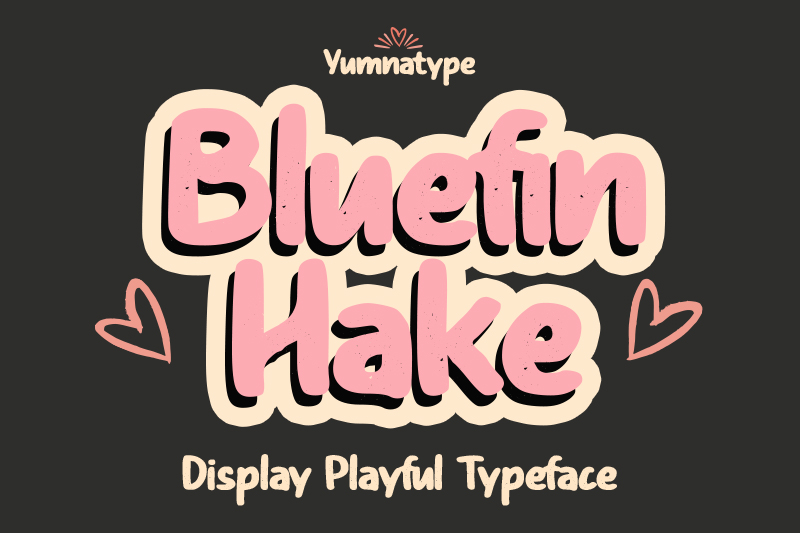
Bluefin Hake is one of cute fonts with a bold look and expressive grunge feel. Despite its strong, bold character, this font still conveys a soft and friendly feel. It’s perfect for children’s-themed designs, fun illustrations, and educational content that seeks to be engaging and different. Its anti-mainstream character makes Bluefin Hake appealing to audiences who appreciate unique visual styles.
Cute Oneself
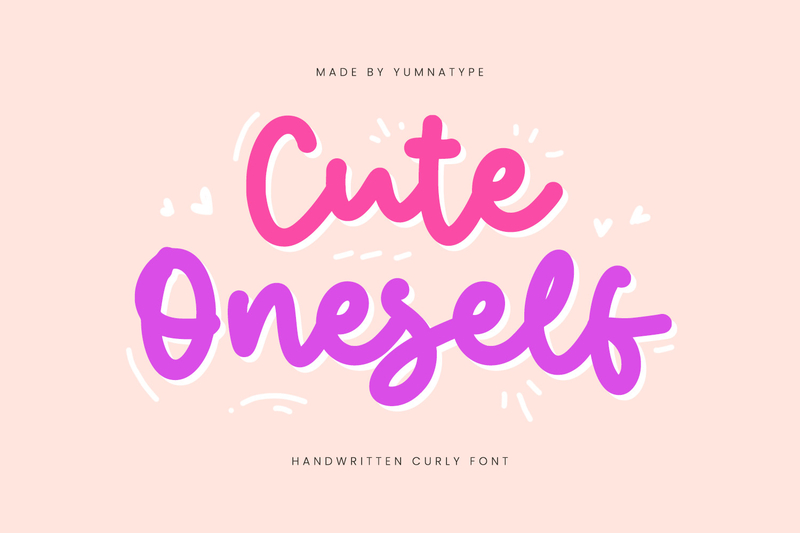
Cute Oneself is a relaxed writing style with a playful handwritten touch, characterized by cheerfully connected or Latin letterforms. This font feels personal and warm, perfect for journaling design, motivational quotes, or fun-filled social media content. Additionally, Cute Oneself, one of the recommended cute fonts, has a playful writing style that makes it appear lively and full of character without overdoing it. Furthermore, it has balanced letter proportions and low contrast, making it comfortable to read.
Gallnut
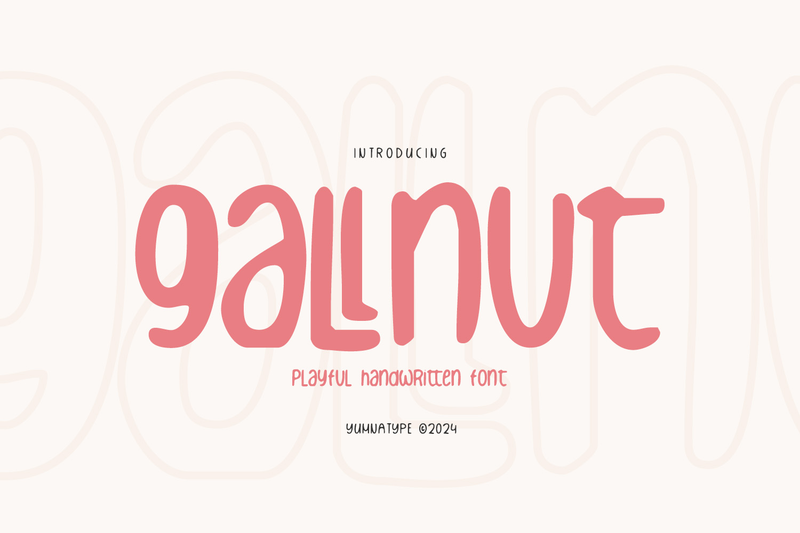
Gallnut presents a playful handwritten font with circular and smooth letterforms, resulting in a cheerful, friendly, and warm feel. As one of the cute fonts that stand out, Gallnut is perfect for creative branding, handmade product packaging, and various fun and friendly themed design projects. Additionally, it has a relaxed yet neat letter style, making it easy to read and comfortable to see.
Ladybels
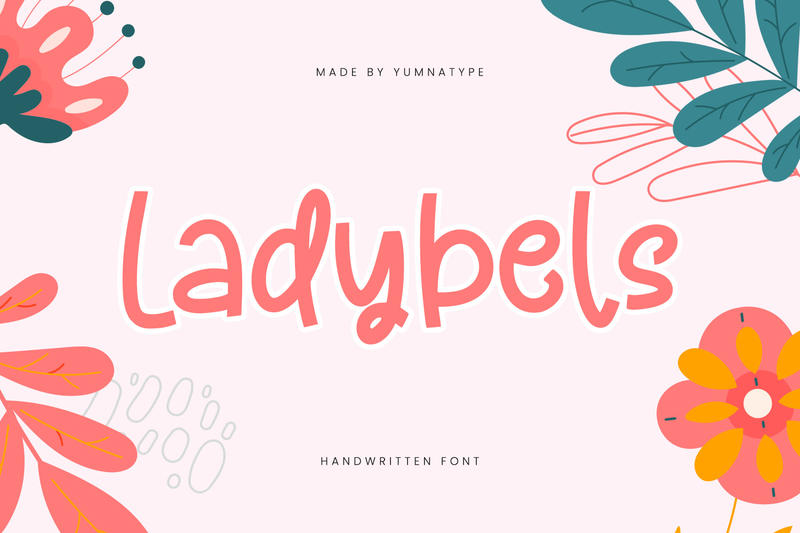
As one of the recommended cute fonts, Ladybels presents a playful handwritten style that flows smoothly, giving a friendly and feminine feel. The light design is comfortable to use as titles, even for longer texts. With a soft and elegant handwriting touch, this font is perfect for feminine products such as perfumes, aromatherapy candles, stationery, beauty products, and girly and cute themed invitations.
Melly Dream
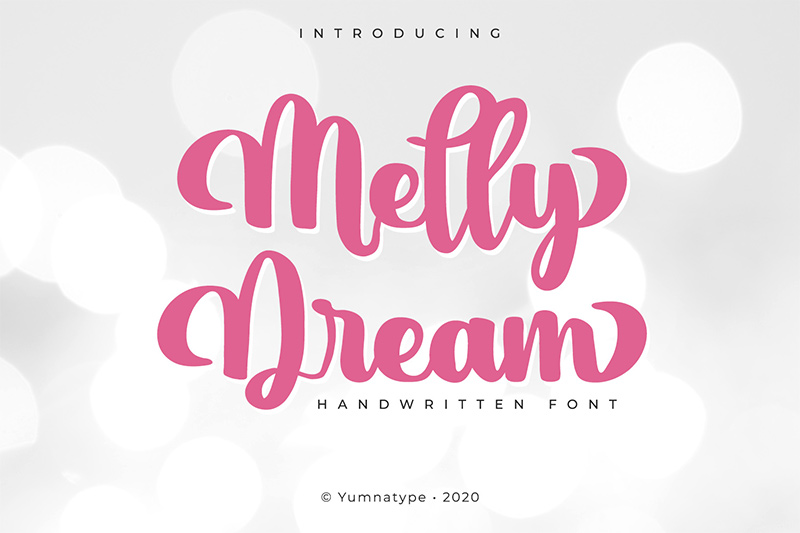
Melly Dream offers a dreamy, playful feel in one look. Inspired by a soft, sweet handwritten style, this font is one of the cute fonts for a feminine, warm character. In addition, its circular, bold, smooth-flow letterforms are perfect for beauty product branding, inspirational quotes, and social media content.
Writing Kids
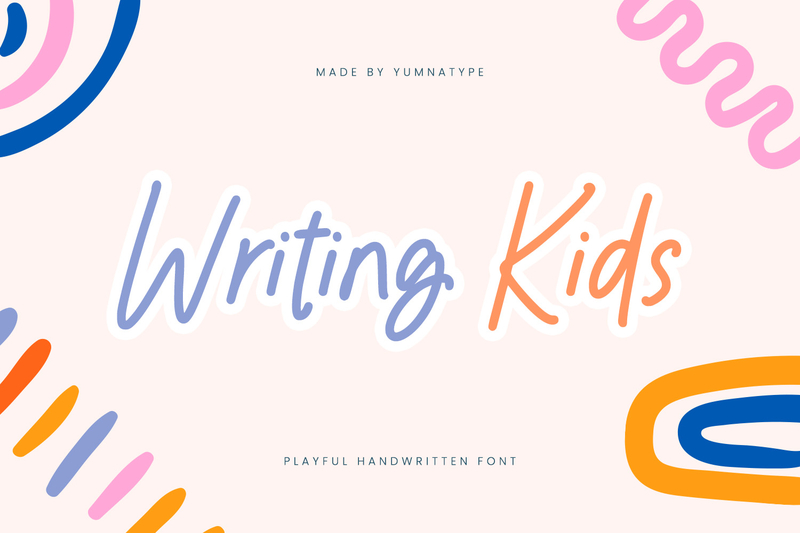
Writing Kids is a playful handwritten font with cheerful and spontaneous character. Designed specifically with a circular letterform, light stroke, and low contrast, this font provides a smooth, friendly, and easy-to-read look. Writing Kids is perfect for children’s product branding, educational media, worksheets, and various creative designs with kid-friendly themes that are warm and fun.
Molly Hugs
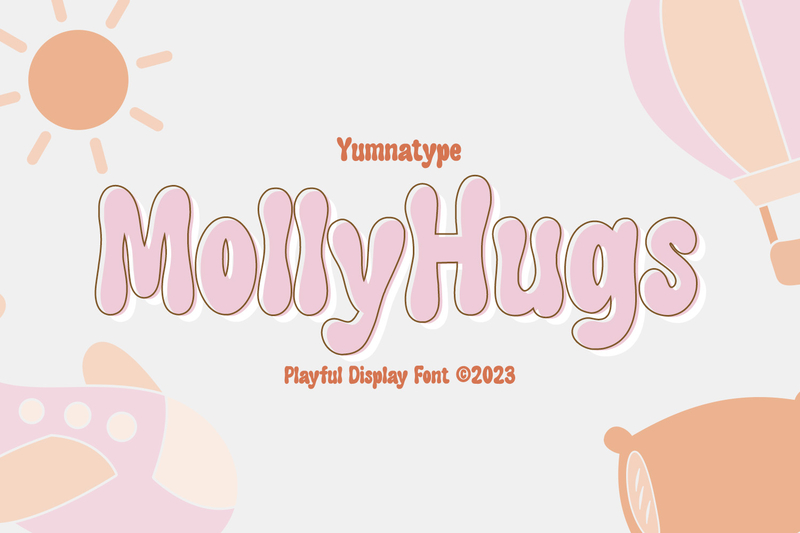
Warm like a hug, Molly Hugs presents as one of the recommended cute fonts with circular and smooth letter characters, giving a friendly and fun feel. As a display font with a soft bubble shape, this font is comfortable to read. Furthermore, it is ideal for quote designs, family-friendly product branding, and content that wants to convey comfort and emotional closeness.
Popy Jelly
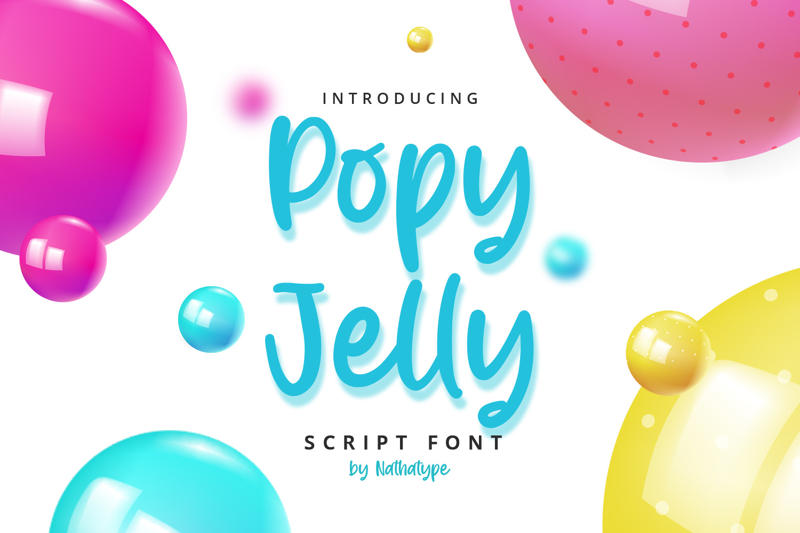
Sweet at first glance, Popy Jelly is among cute fonts that exude cheerful, gentle, and positive energy. With its fun and expressive letterforms, this font is suitable for branding children’s products, snack packaging designs, fun-themed event posters, and digital content that aims to appear energetic. Further, it features a playful script style that flows and connects beautifully.
Snowing Handwritten Font
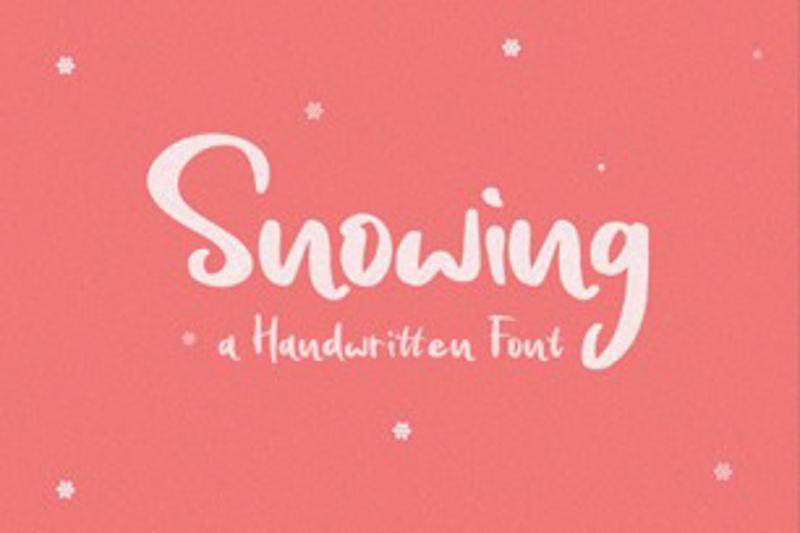
Featuring a soft and expressive handwriting touch, the Snowing Handwritten Font exudes a warm, cheerful, and natural feel. Moreover, it features beautiful ligatures that blend seamlessly between letters, creating a flowing and aesthetically pleasing text appearance. As one of the recommended cute fonts, this font is ideal for branding, posters, social media, invitations, and various modern creative designs.
Sunday Flicker
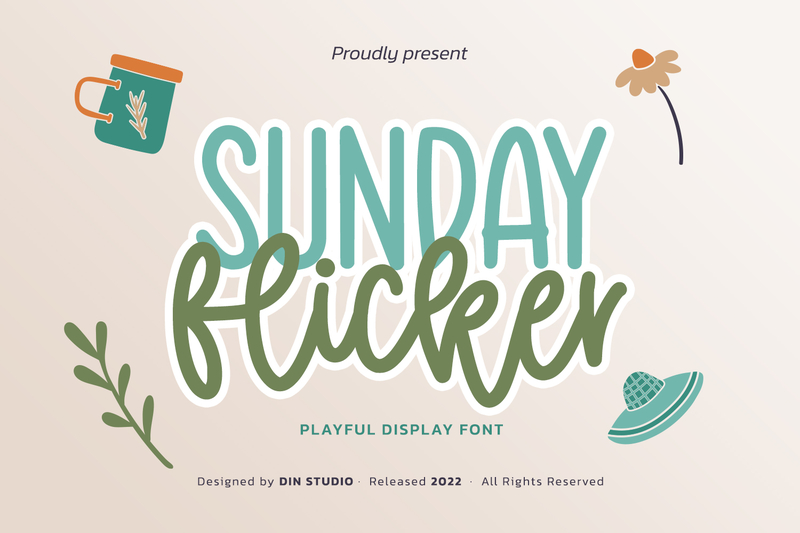
Sunday Flicker is a playful display font that falls into the category of cute fonts, featuring a distinctive combination of uppercase and lowercase letters as its main character. The uppercase letters are designed simply with low contrast to convey a friendly and playful feel, while the lowercase letters use a connected cursive style resembling natural handwriting. With its refined design, Sunday Flicker is suitable for various modern creative design needs, such as branding, posters, and social media.
Use the recommended cute fonts above and make your designs more interesting, friendly, and cheerful!